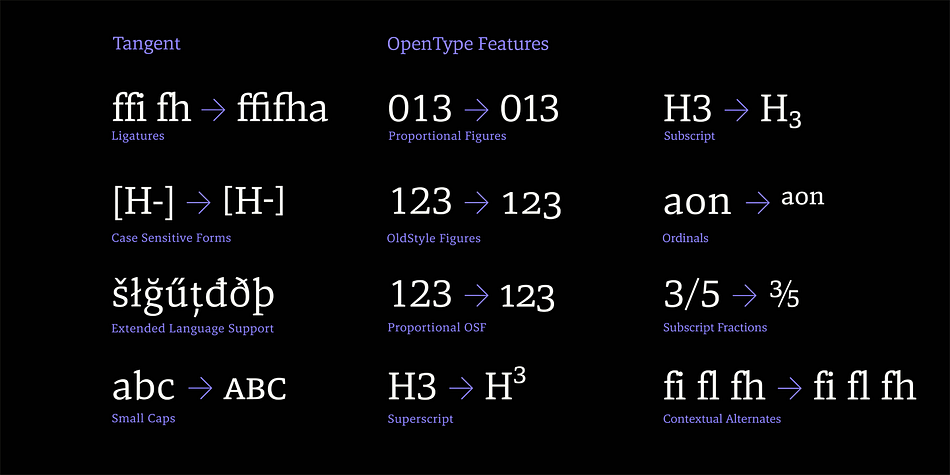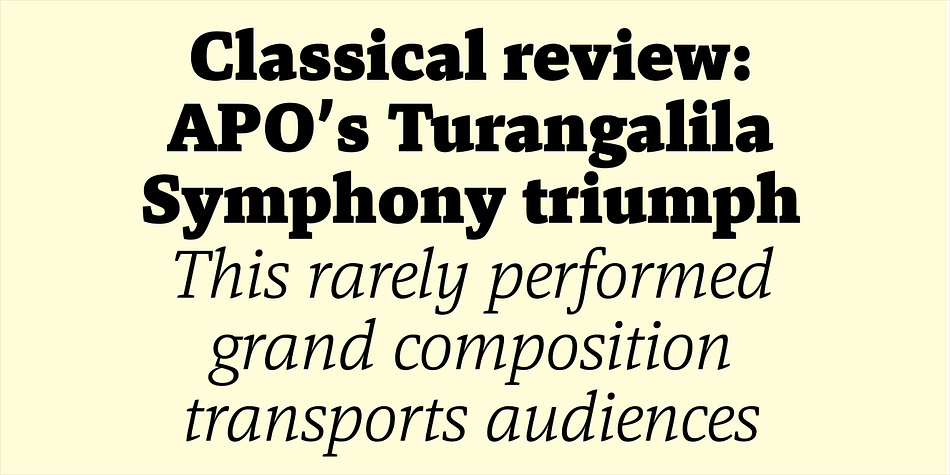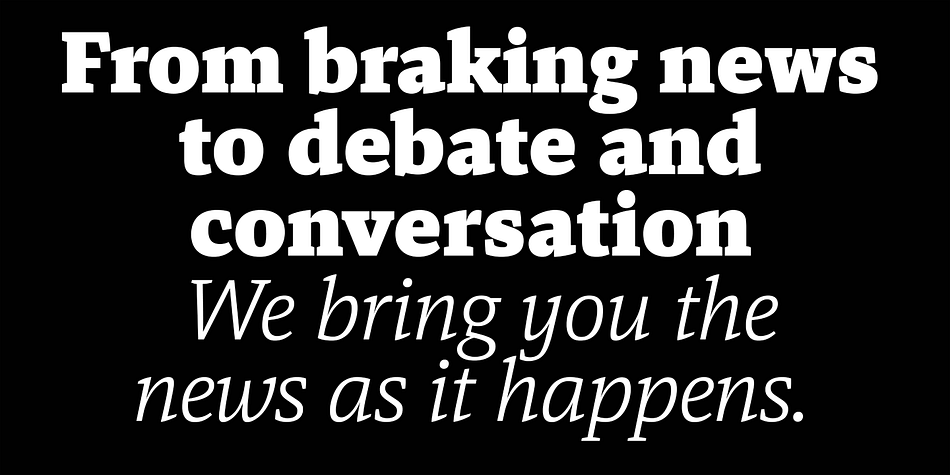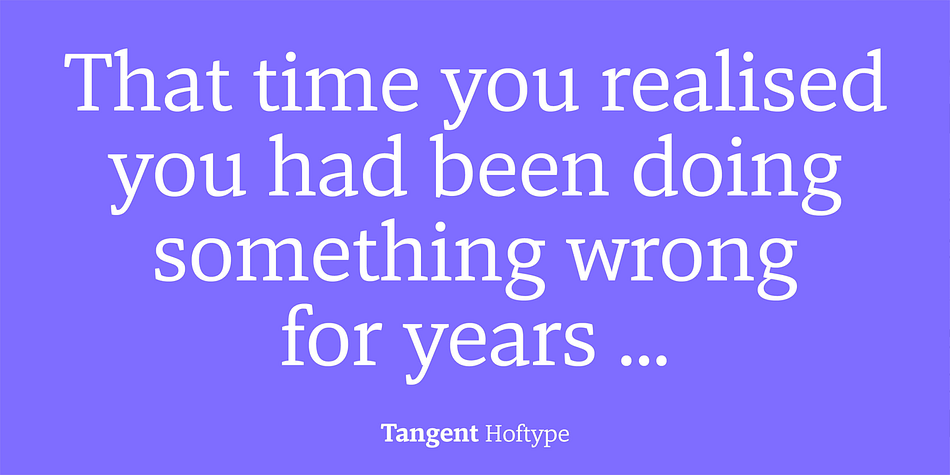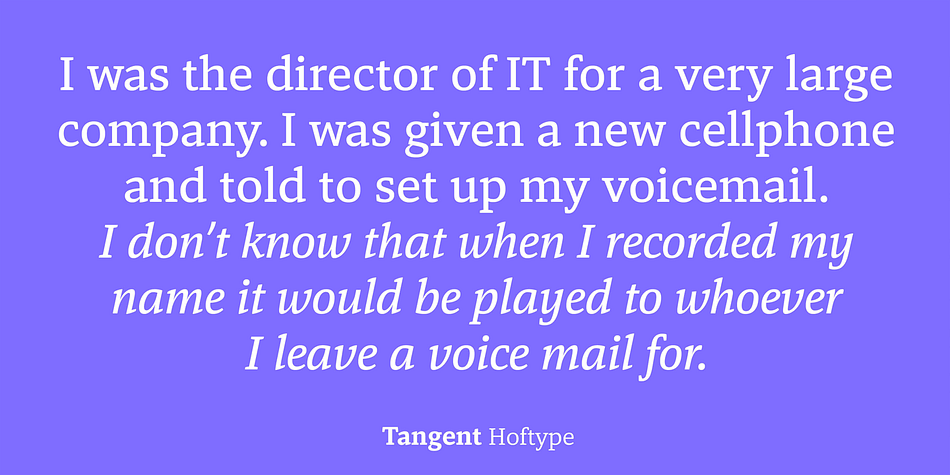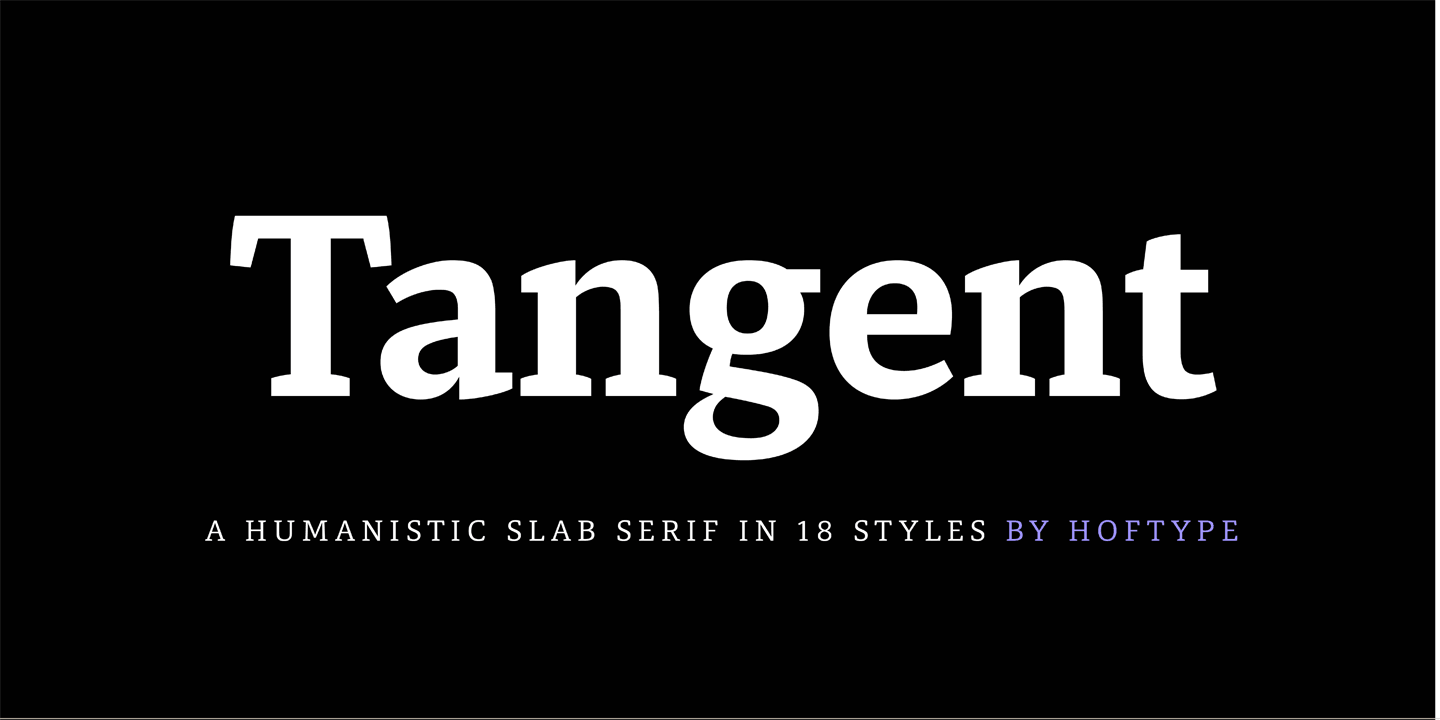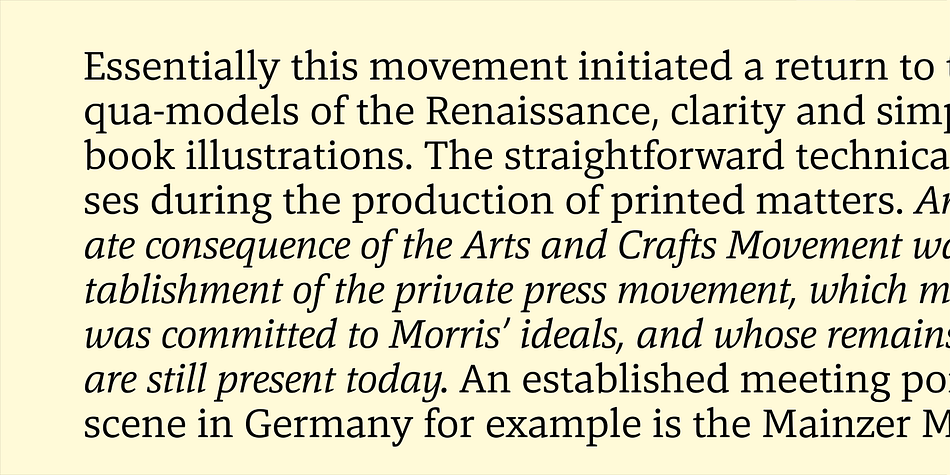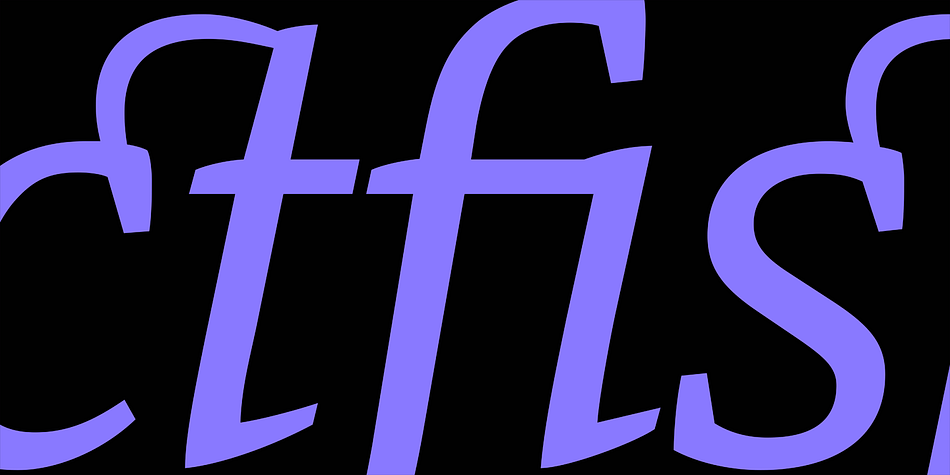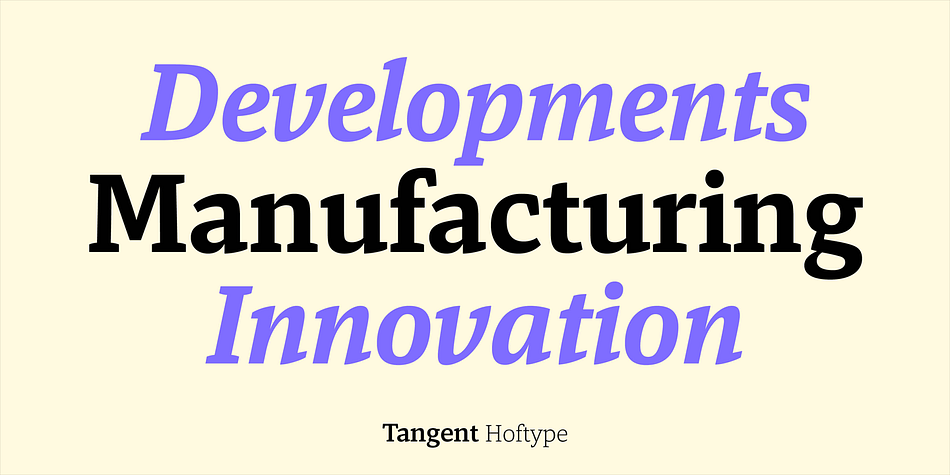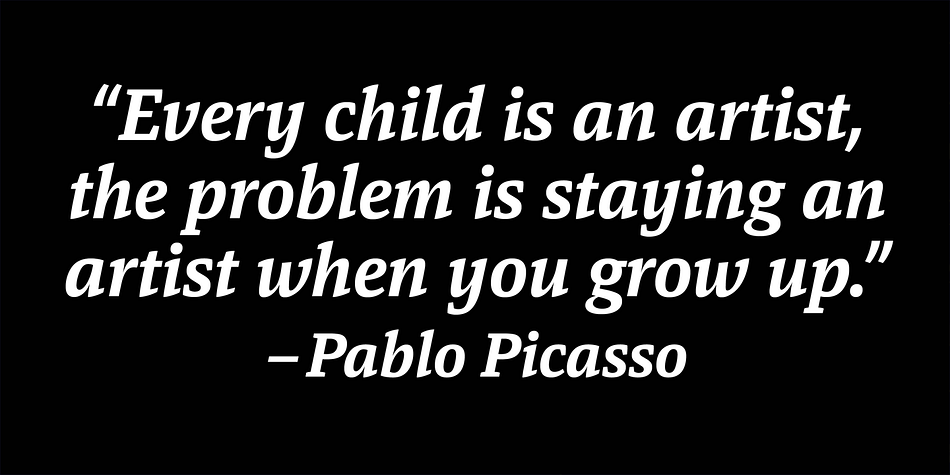
Designed by Dieter Hofrichter, Tangent is a slab serif font family. This typeface has eighteen styles and was published by Hoftype.
Tangent provides a fresh new look on serif dominant typefaces. Its strict graphic outline makes it appear crisp, lively and unsentimental; and at the same time humanistic virtues have also been well taken into account.
Tangentd consists of 18 styles. It comes in OpenType format and provides an extended language support. All weights contain standard and discretionary ligatures, proportional lining figures, tabular lining figures, proportional old style figures, lining old style figures, matching currency symbols, fraction- and scientific numerals, matching arrows and alternative characters.